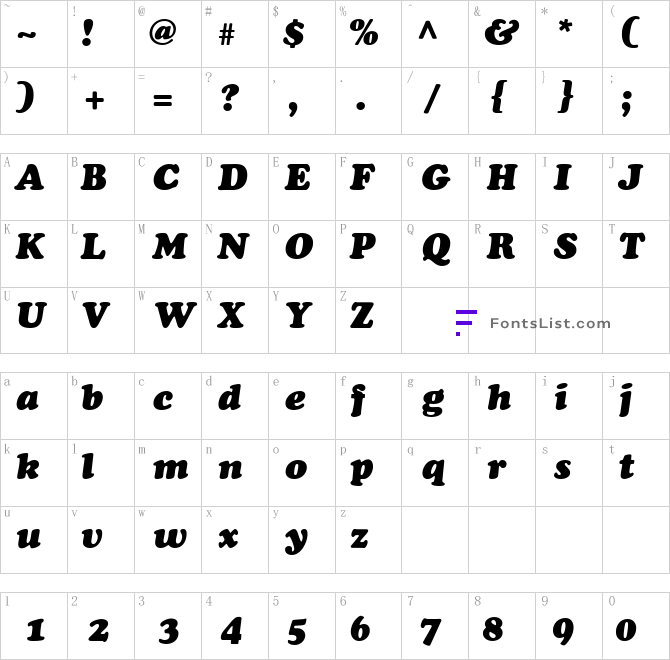
- Font Name:AG_Cooper
- Subfamily:FontMonger:AG_Cooper Italic
- Full Name:AG_Cooper Italic
AG_Cooper-Italic-copy-1-.ttf is a very beautiful artistic font, AG_Cooper-Italic-copy-1-.ttf is widely used in the design and printing of various books and pictures,AG_Cooper-Italic-copy-1-.ttf has a strong visual impact,AG_Cooper-Italic-copy-1-.ttf is a commonly used font in newspapers, magazines and books, and is used in posters, e-commerce Poster design, store design, logo design, font design and other fields.AG_Cooper-Italic-copy-1-.